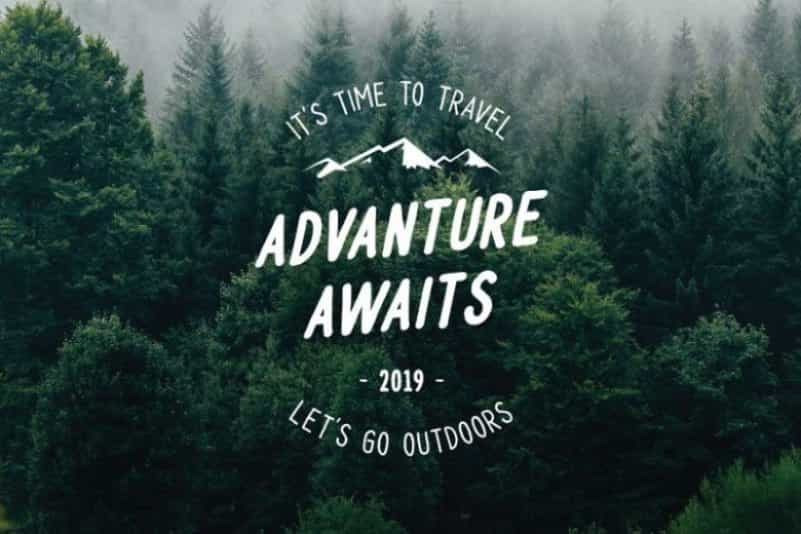
Le Havre City is an innovative font family – mainly sans serif. The essence is in the mimicry of the strokes written by a hand of a child; it is very interesting to manipulate and adds a personal touch if used. Le Havre City comes with low, regular and high variations for the regular style, and low, regular and high for the oblique cut style.